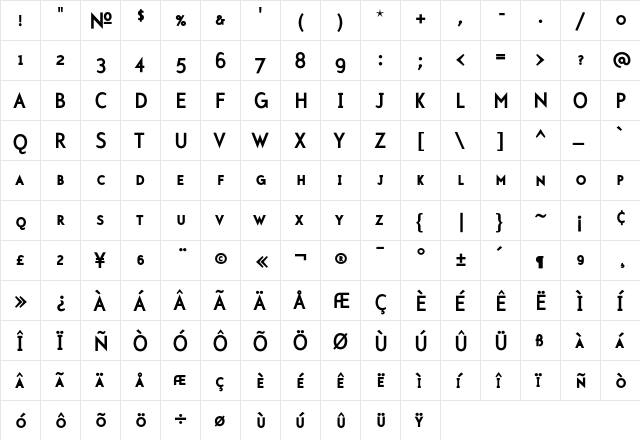
Mercury BoldSmallCaps Font Preview
Mercury BoldSmallCaps
Mercury BoldSmallCaps Font Details
Design Context for Mercury Typeface
Mercury takes a measured approach to typography — its balanced proportions and neutral character make it a reliable workhorse for both digital and print work. The heavy weight commands attention and anchors typographic hierarchies.